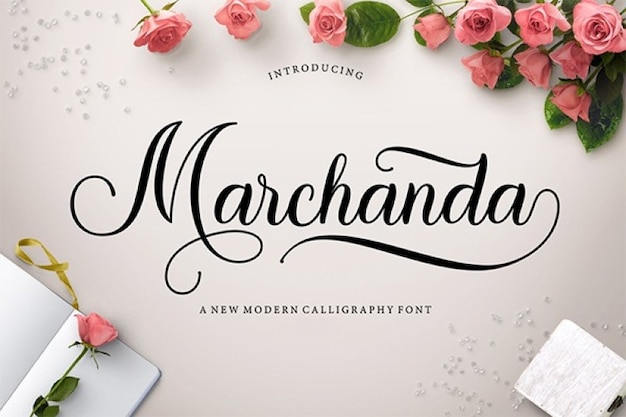
Marchanda Script Font
Modern and beautiful. The smooth upright signature style of Marchanda lends itself well to wedding use as it gives a classic and romantic look. It can be used for invitation cards, menus, and other wedding-related designs. Download it now!